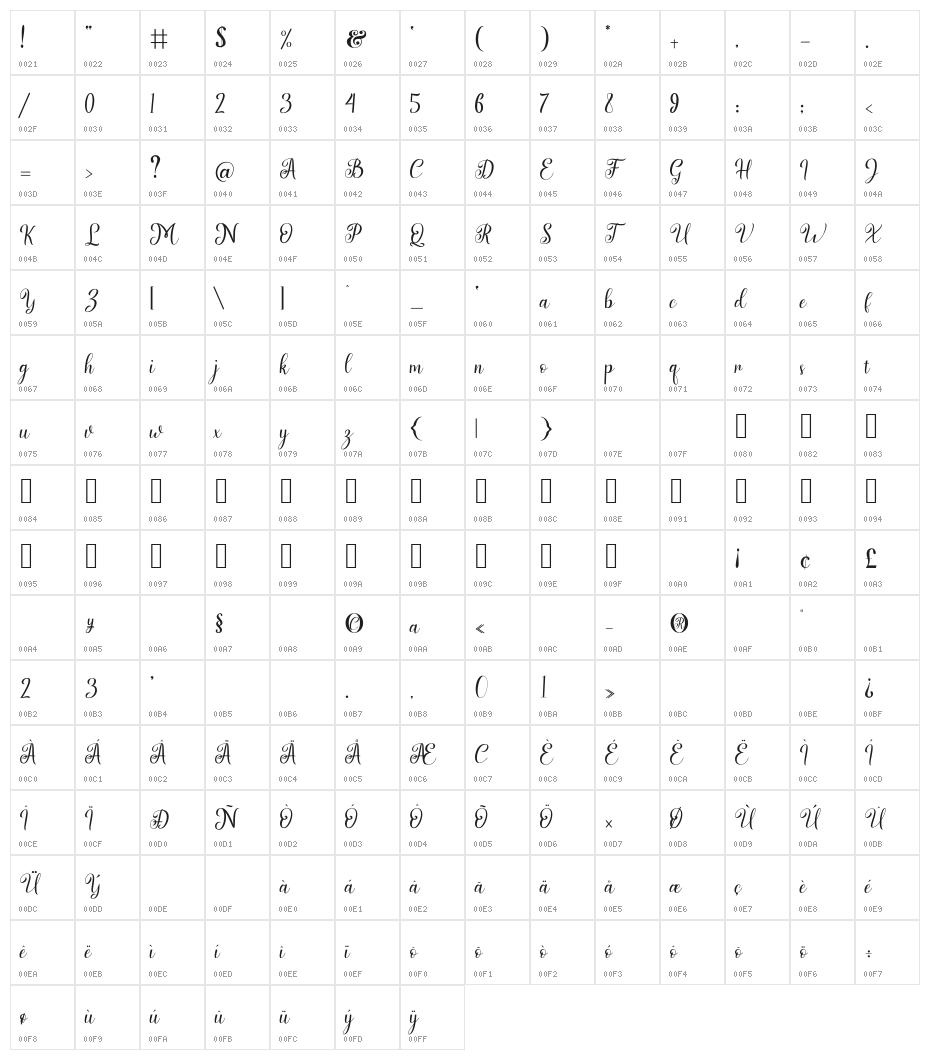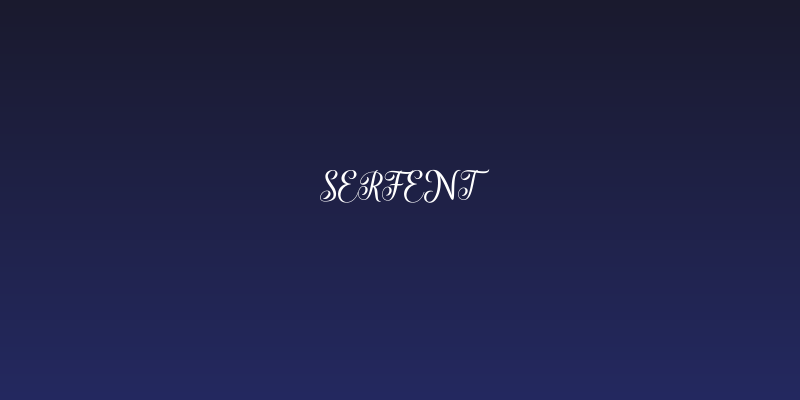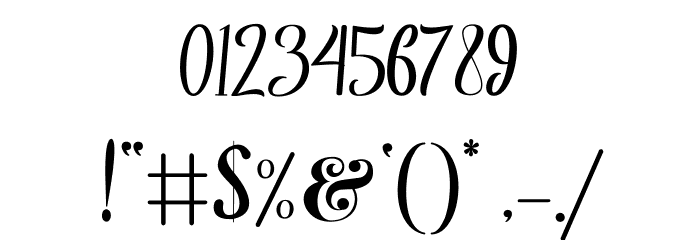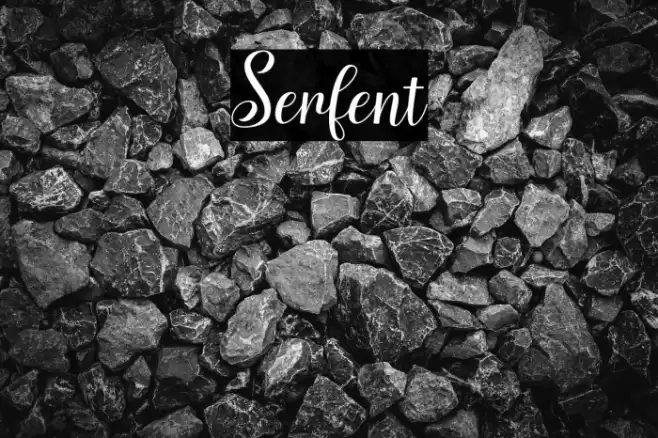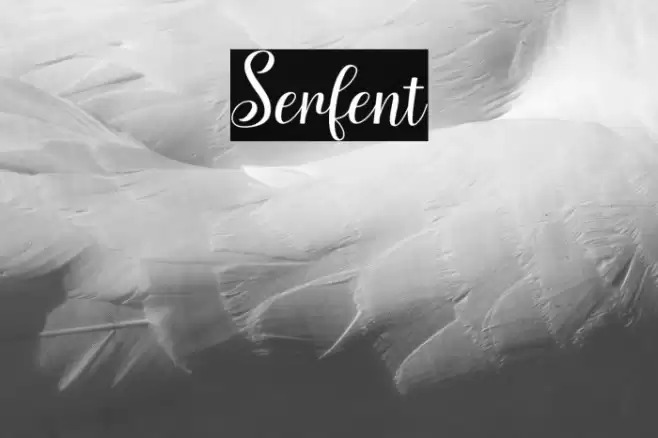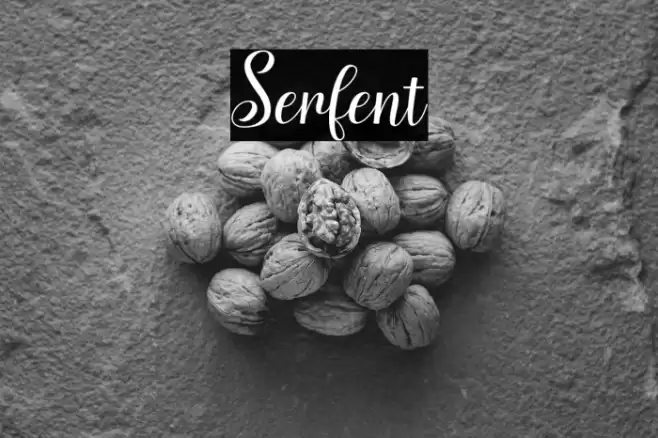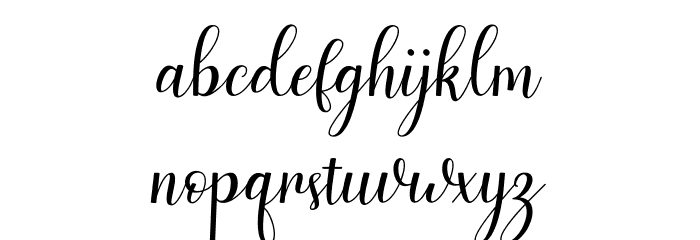
Serfent Font
Serfent Description
This elegant script font features flowing, cursive letters with a sophisticated and artistic flair. The uppercase letters are adorned with intricate loops and swirls, giving them a decorative and ornate appearance. The lowercase letters maintain a graceful continuity, with smooth connections and a slightly slanted orientation. The numerals are styled to match the overall script aesthetic, providing a cohesive look. Special characters are designed with the same attention to detail, ensuring they blend seamlessly with the rest of the font. This font exudes a sense of elegance and refinement, making it ideal for projects that require a touch of class and sophistication.
| Overall Style | Elegant, Decorative |
| Use Case | Logos, Invitations, Decorative text |
| Proposed Projects | Wedding invitations, luxury branding, elegant packaging, greeting cards, and upscale event signage. |